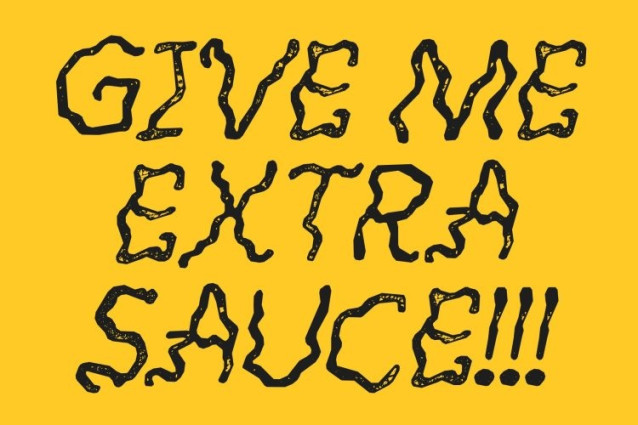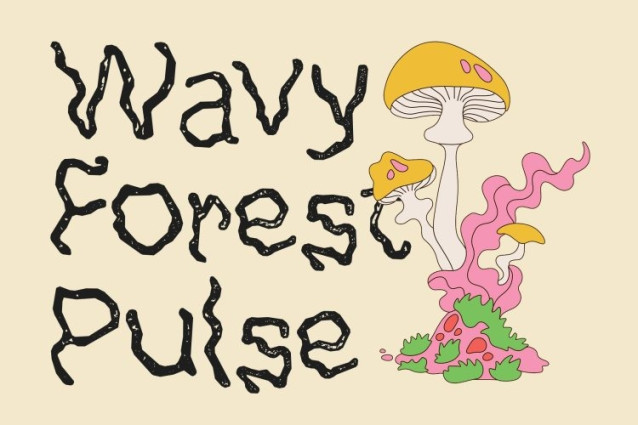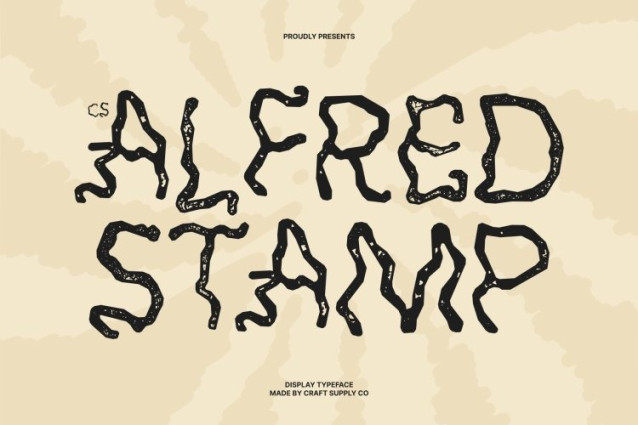
CS Alfred Stamp Font
CS Alfred Stamp Font This is a display font that blends modern typographic structure with expressive, hand-drawn energy. Enhanced with a stamp effect, its etchy, sketched textures feel raw, tactile, and intentionally imperfect. Each letter carries a distressed, inked look like it was pressed from a handmade block creating a organic personality that feels artistic and authentic.
Funky, Cheerful, and Full of Character
This font radiates a funky, cheerful spirit that instantly brings life to any design. The stamped texture amplifies its playful nature, adding a slightly rough, vintage edge that feels lively rather than messy. The result is typography that feels spontaneous, joyful, and confidently unconventional.
Rough Stamp Texture with Expressive Authenticity
The uneven contours and etched details of this font introduce a strong handcrafted impression. Its worn, stamped surface breaks away from overly clean digital aesthetics, offering a more human and expressive feel. This makes the font perfect for designs that value individuality, creativity, and bold visual storytelling.
Perfect for Bold, Artistic, and Youthful Projects
Designed to stand out, ideal for art posters, album covers, fashion look books, streetwear branding, youth-oriented visuals, and lifestyle packaging. Its funky attitude combined with a textured stamp finish ensures every design feels energetic, artistic, and unforgettable.